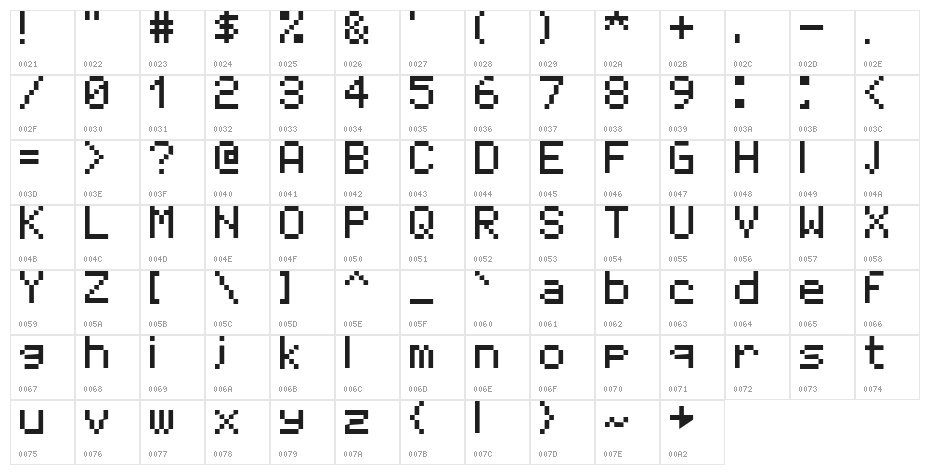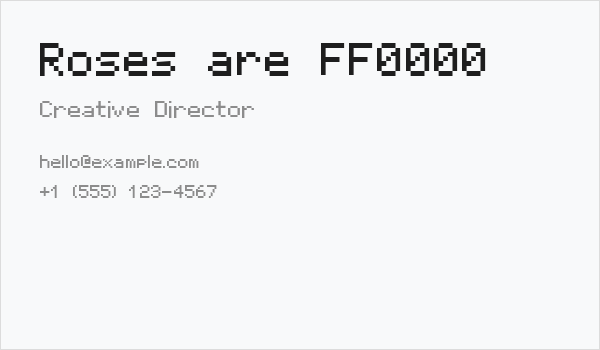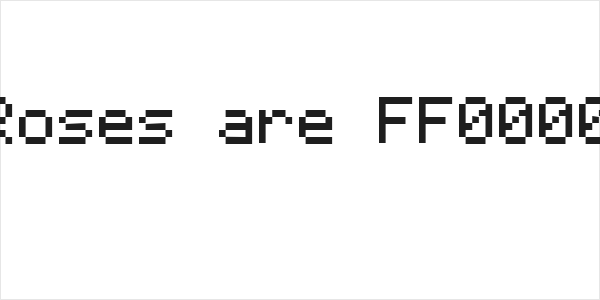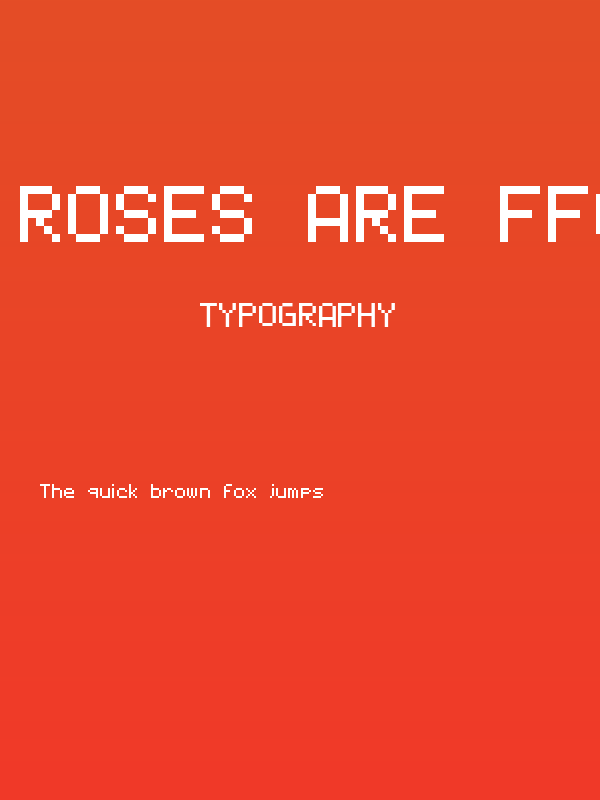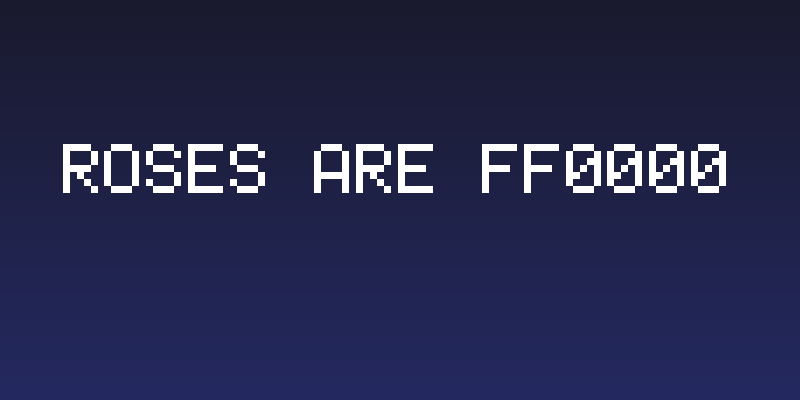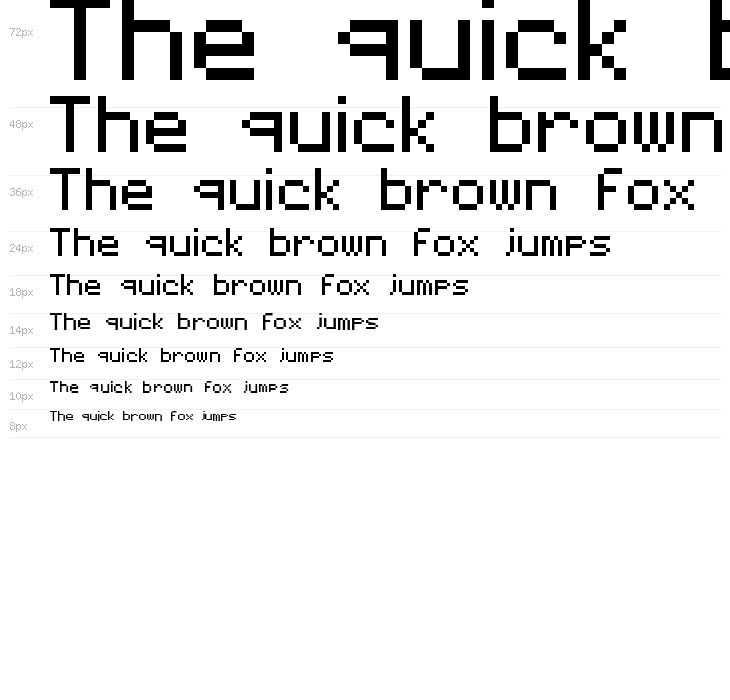
Roses are FF0000 Font
Roses are FF0000 Description
This font features a pixelated, blocky design reminiscent of early digital displays and video games. Each character is constructed with a grid-like precision, giving it a distinctly retro and technological feel. The uppercase and lowercase letters maintain a consistent height, with the lowercase being slightly smaller in width. Numbers and special characters follow the same pixelated style, ensuring uniformity across all glyphs. The font's simplicity and geometric structure make it highly legible at small sizes, while its nostalgic aesthetic adds a playful touch to any design.
| Overall Style | Retro |
| Use Case | Headlines, Logos, Digital Art |
| Proposed Projects | Ideal for retro-themed designs, video game graphics, digital art projects, and any creative work that requires a nostalgic or technological vibe. |